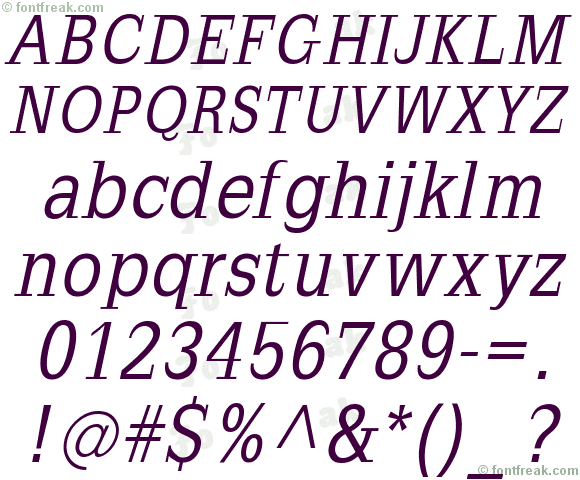
SlabRomana-Oblique
About SlabRomana-Oblique
SlabRomana-Oblique is a striking serif font designed by Manfred Klein, falling into the slab serif category. This typeface showcases a unique blend of boldness and style, characterized by its thick, block-like serifs that lend it a robust and commanding presence. The oblique slant adds a dynamic element to the letterforms, enhancing its visual appeal while maintaining legibility. With consistent stroke weight and balanced spacing, SlabRomana-Oblique is both functional and aesthetically pleasing, making it suitable for a variety of applications.
This versatile font is ideal for tasks such as designing attention-grabbing movie posters, where its boldness can create an impactful statement. It also works wonderfully for restaurant menus, allowing for easy readability combined with a touch of character. Additionally, the font can elevate branding materials for small businesses, providing a professional yet artistic touch to logos and marketing collateral. Content creators looking for a distinctive typeface to enhance their digital graphics will find SlabRomana-Oblique to be a valuable asset as well.
What sets the SlabRomana-Oblique font apart is its unique combination of strength and elegance. The oblique design adds a sense of motion, making it an excellent choice for projects that require a modern touch. With the SlabRomana-Oblique font free download, you can incorporate this exceptional typeface into your work, ensuring your designs stand out in any medium.